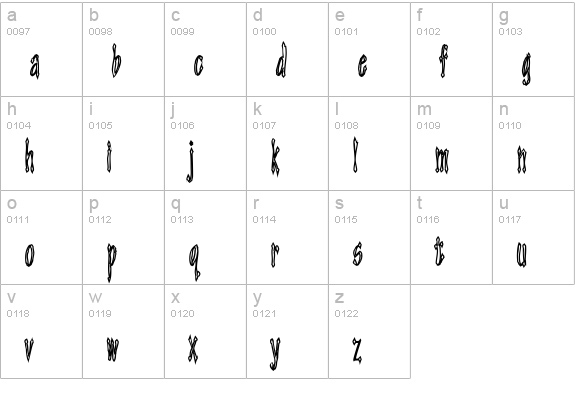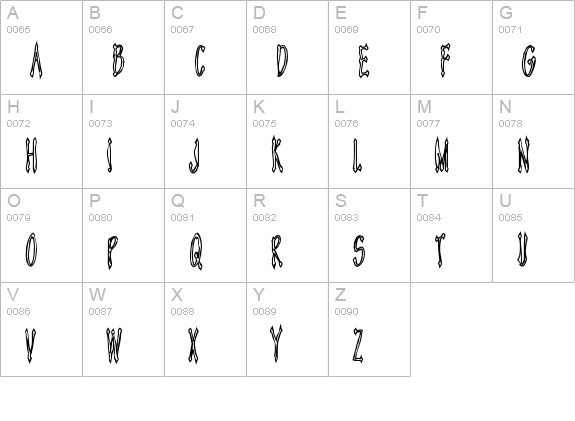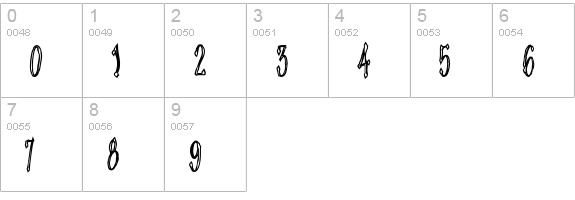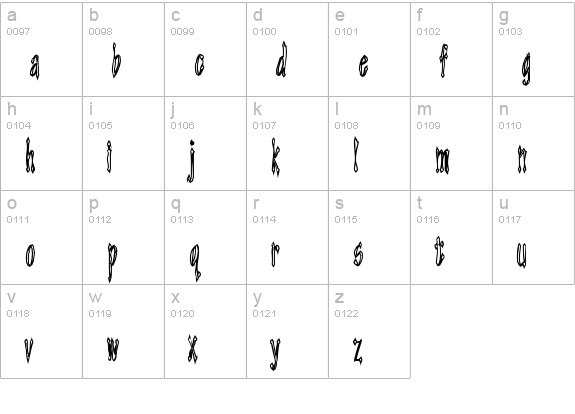
Androganonamous Font Details
Androganonamous font is a versatile and modern typeface that is perfect for a wide range of design projects. With its clean lines and stylish appearance, this font exudes a sense of sophistication and professionalism. Whether you're working on a branding project, website design, or print materials, Androganonamous font will elevate your work to the next level. The best part? Androganonamous font is available for free download at FontsMarket.com. This means you can access this high-quality font without breaking the bank, making it a valuable addition to your font collection. Don't miss out on the opportunity to enhance your designs with the sleek and elegant Androganonamous font – download it today and see the difference it can make in your projects!